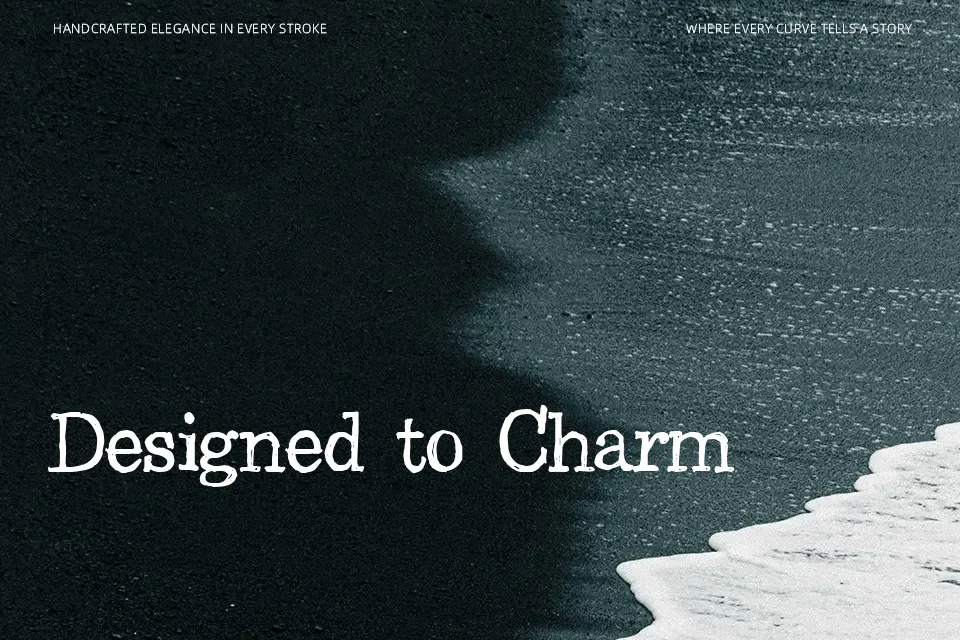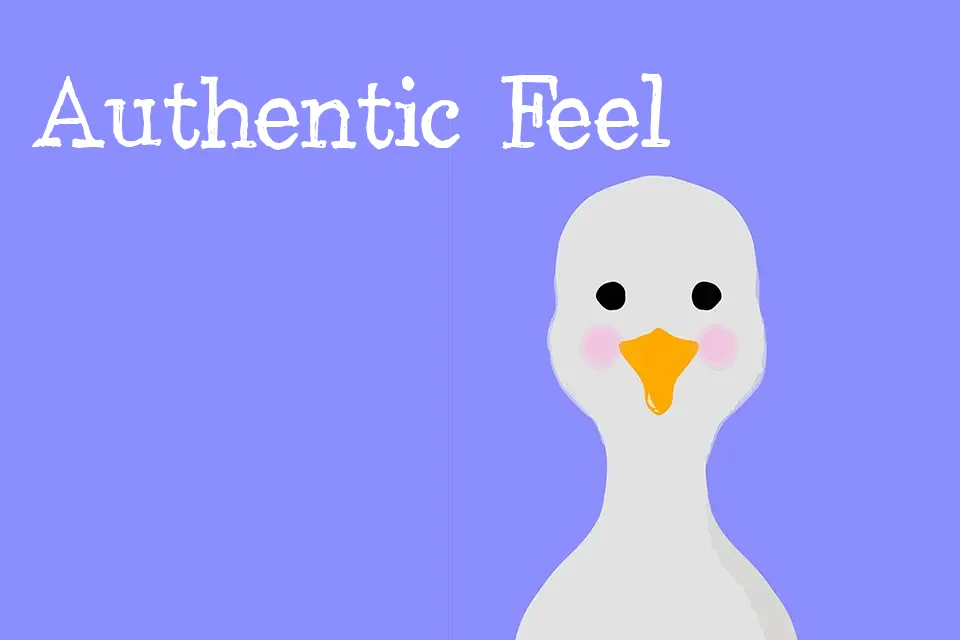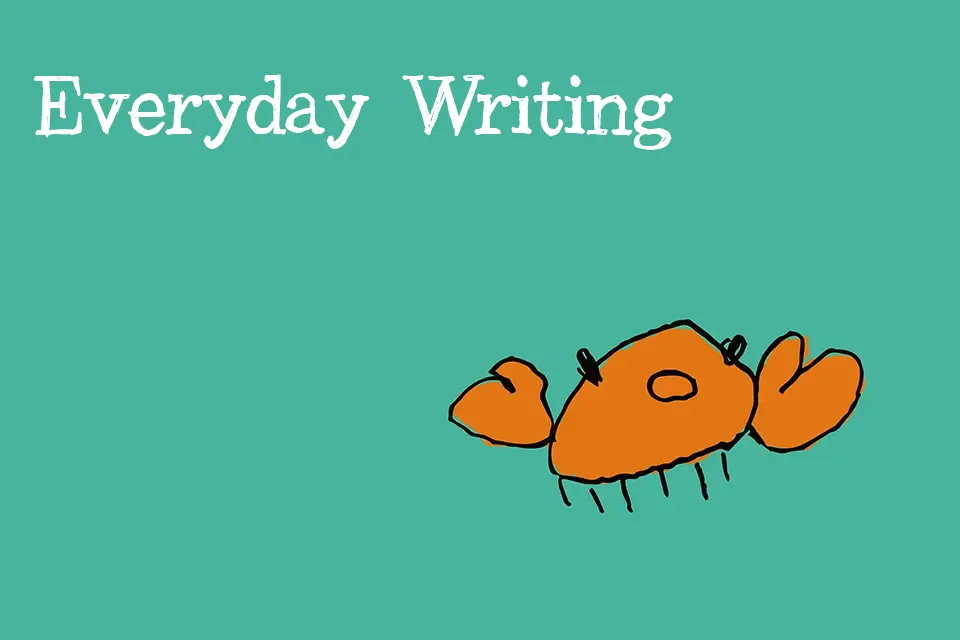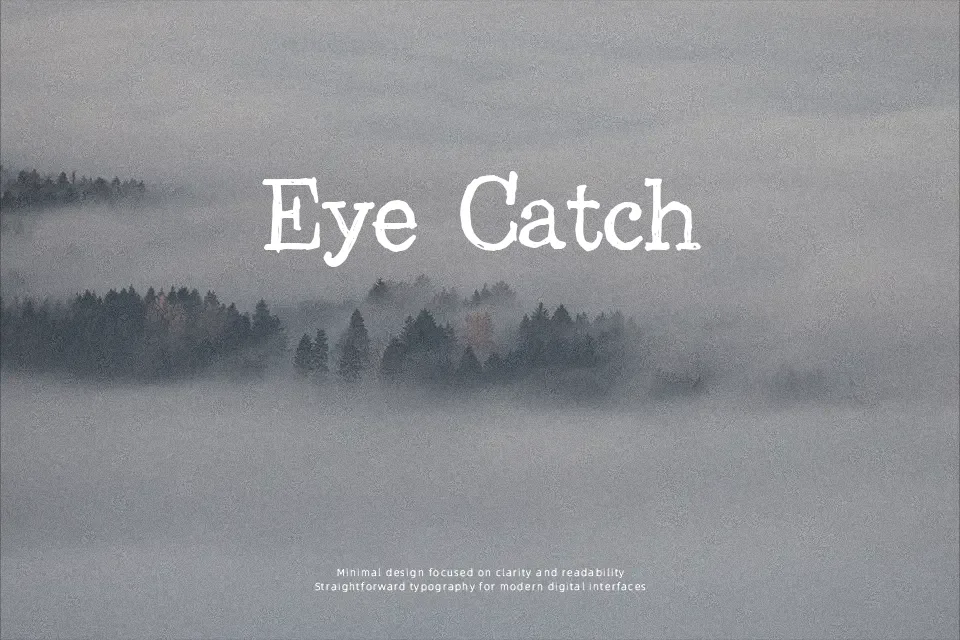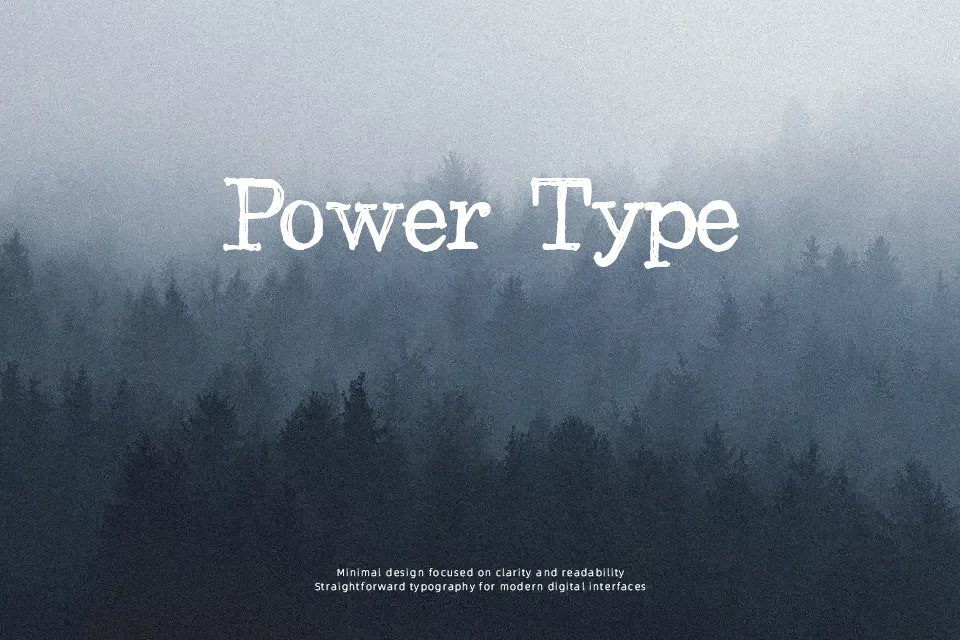
CF Back to School Font
CF Back to School Font establishes an informal classroom tone through mechanical typewriter geometry softened by weathered, irregular stroke contours. Each glyph exhibits subtle erosion along the stems and serifs, producing a tactile stamped appearance that maintains consistent proportions across the uppercase and lowercase sets. Wide letter spacing preserves glyph separation across medium display scales, making the design well suited for children book covers, themed packaging, and community bulletin notices. However, the textured stroke edges degrade significantly in dense editorial layouts, where small print reduces visual clarity. The typeface excels when given generous breathing room in bold display compositions.
Best For: vintage school flyers, children book covers, themed product packaging, classroom bulletin headers
Not Ideal For: long editorial body paragraphs, mobile navigation text, legal document fine print, technical data tables
Perfect for branding, headline, and kids, with a creative and decorative style.